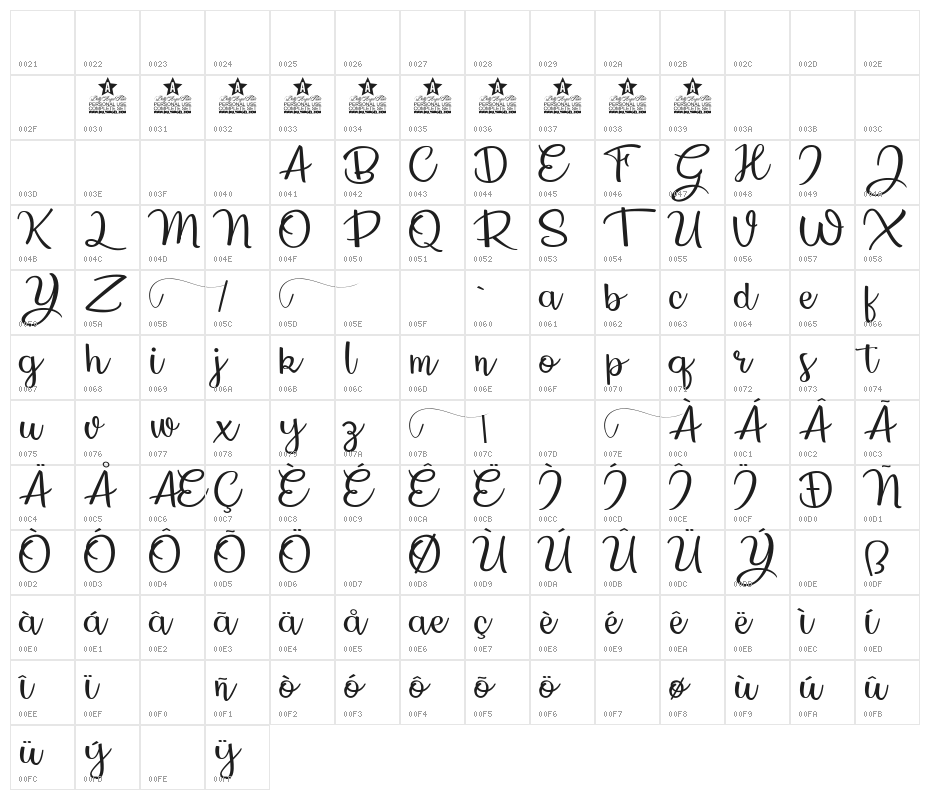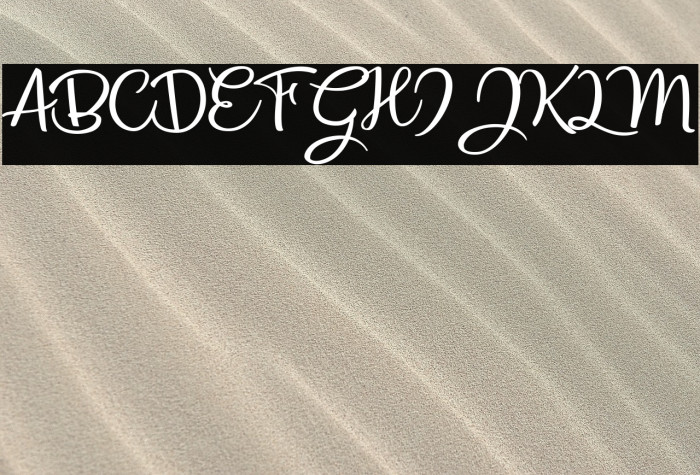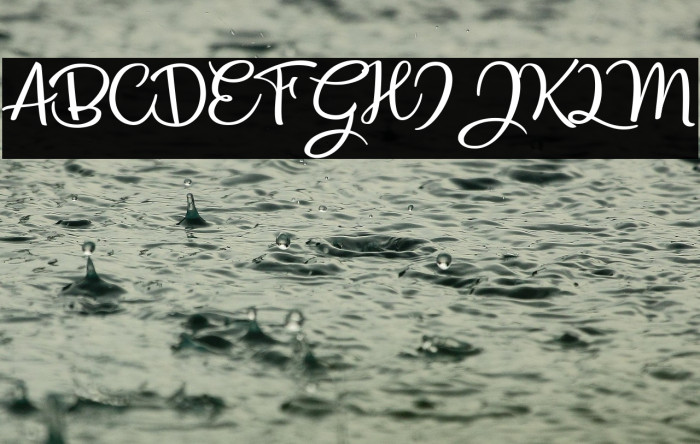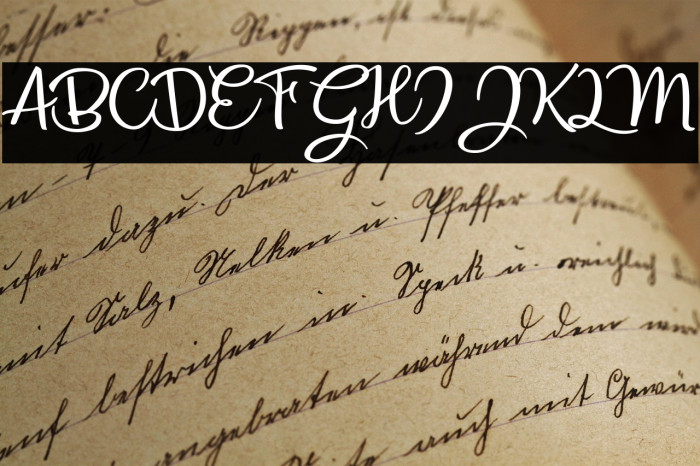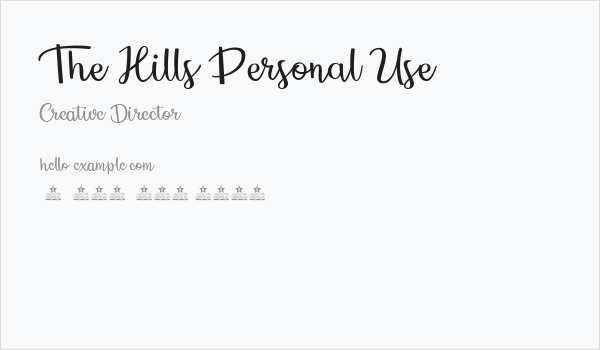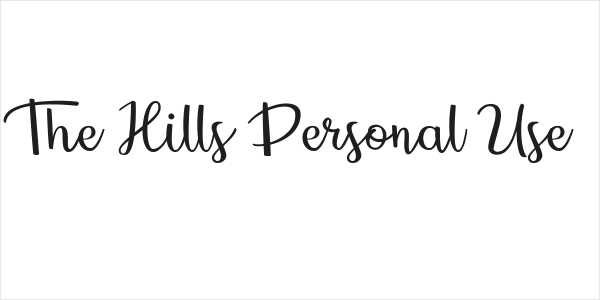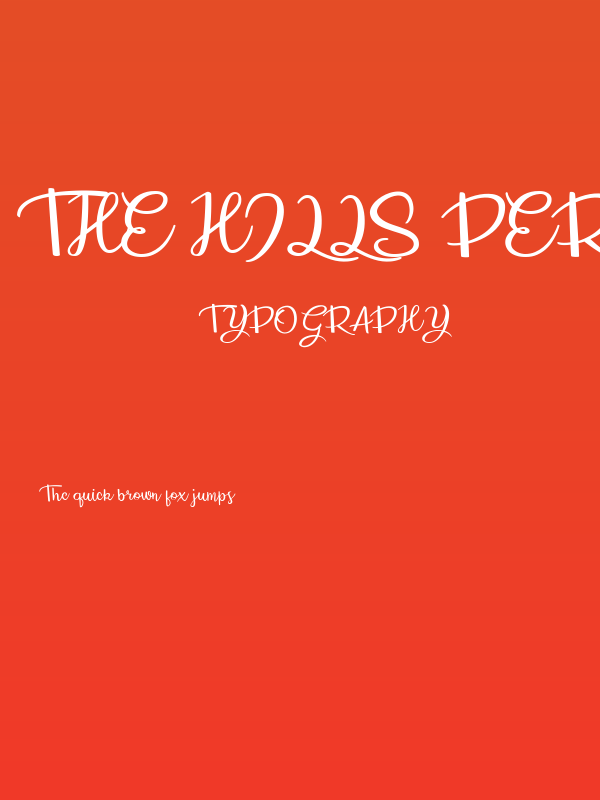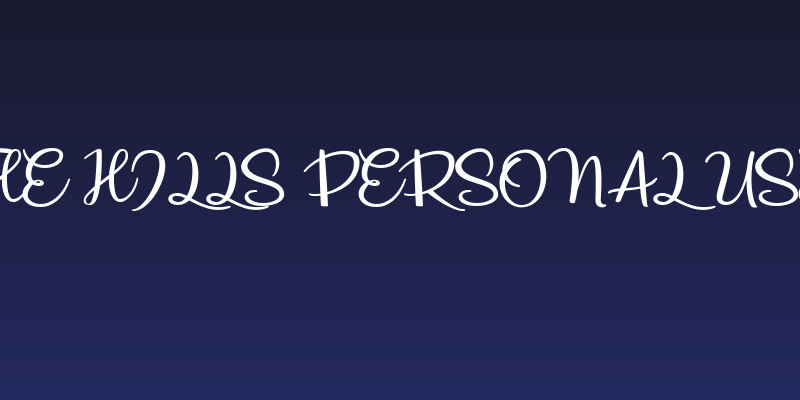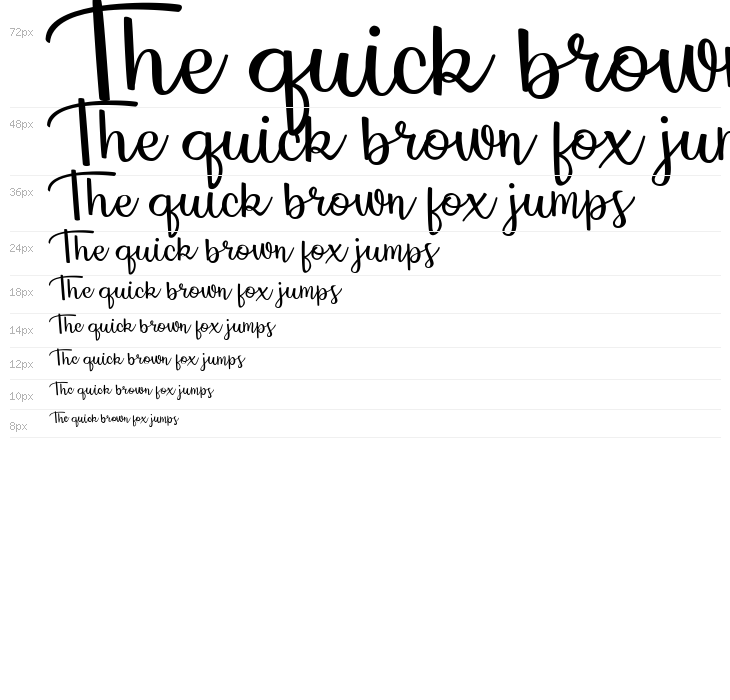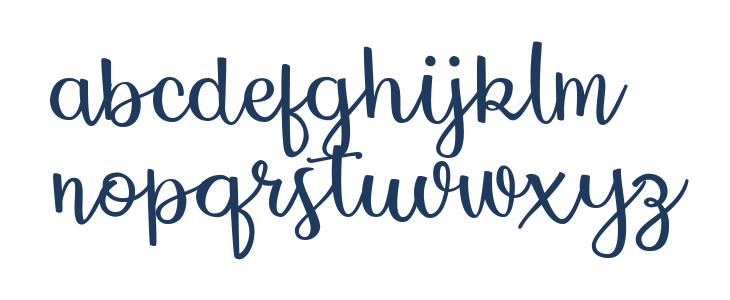
The Hills Personal Use Font
The Hills Personal Use Description
This font features a flowing, cursive style with elegant loops and swashes, giving it a handwritten appearance. The uppercase letters are slightly more ornate, with extended strokes and flourishes, while the lowercase letters maintain a consistent, smooth flow. The characters are well-balanced, providing a harmonious look that is both stylish and readable. The font's playful yet sophisticated design makes it suitable for a variety of creative projects.